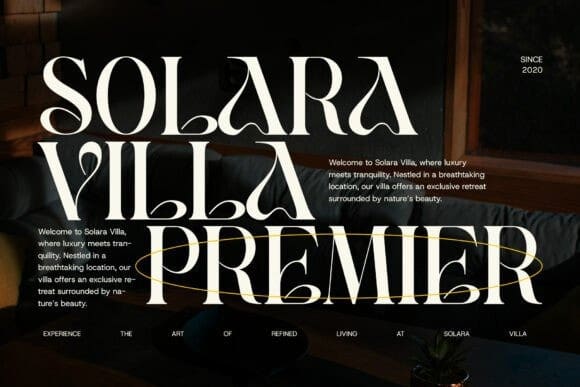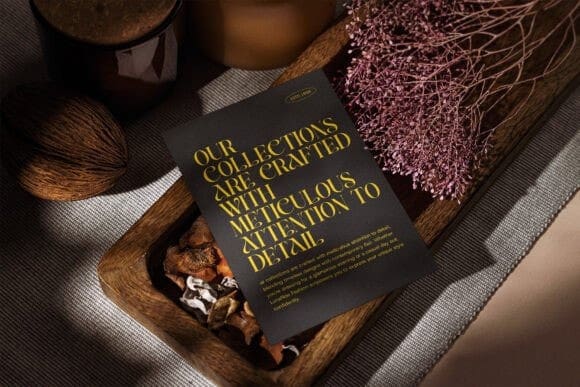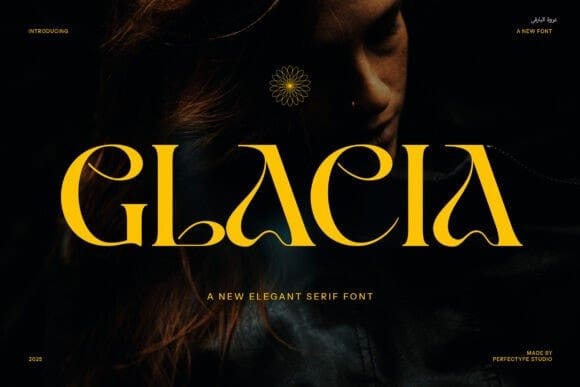
Glacia Font
Glacia Font – Modern Serif Font is a sophisticated and contemporary typeface designed to bring an air of refinement to any design project. With its elegant serifs and sharp, clean lines, Glacia effortlessly blends modern aesthetics with timeless charm. The font features distinctive ligatures and alternate characters that give it a unique personality, allowing you to create bold and creative typographic designs that stand out.
Ideal for a variety of design applications, Glacia Font is perfect for logos, branding, and high-end product design. Its balanced structure and high legibility make it a top choice for websites, magazines, advertisements, and more. Whether you’re designing a minimalist logo, an eye-catching advertisement, or a luxury brand, Glacia brings a sense of sophistication that elevates any project.
This versatile typeface works beautifully across industries, from boutique fashion brands to upscale restaurants, spas, and more. Its timeless elegance is perfect for conveying luxury, refinement, and style, while its modern characteristics ensure that it feels fresh and relevant in today’s design landscape.
Whether used in headlines, body text, or decorative elements, Glacia Font – Modern Serif Font adds a touch of class to any composition. With its perfect blend of modernity and elegance, it’s the ideal choice for designers seeking a versatile and visually captivating typeface that can enhance branding, print, digital, and advertising projects alike. Let Glacia bring sophistication and modern charm to your next creative endeavor.xt design project stand out with the distinctive charm of Higlean, and give your brand a modern yet enduring presence.